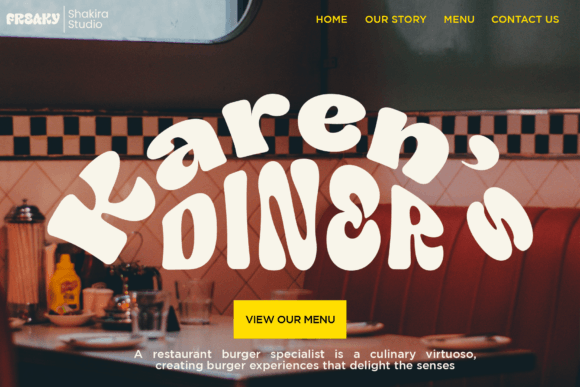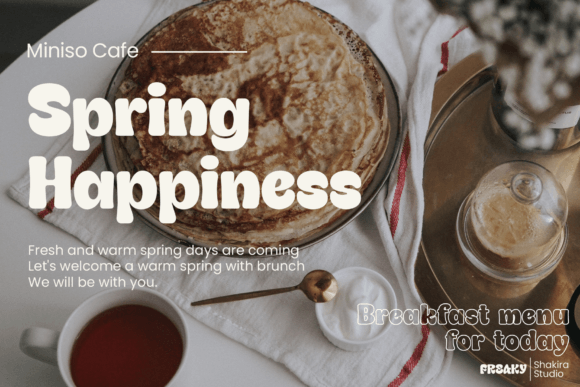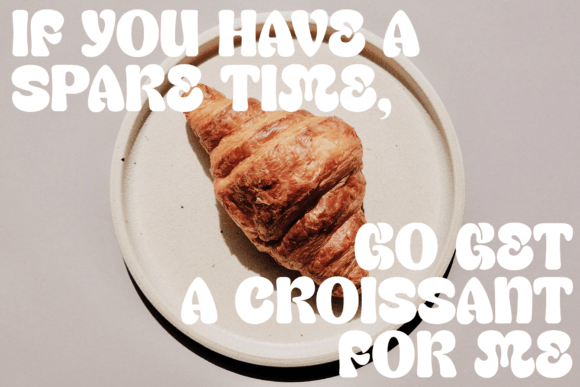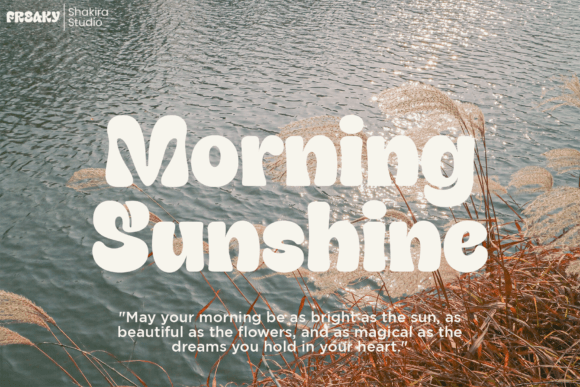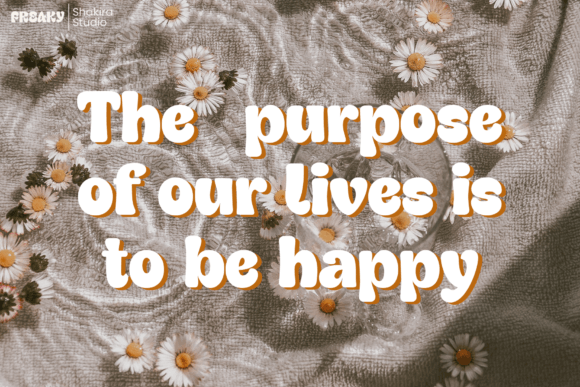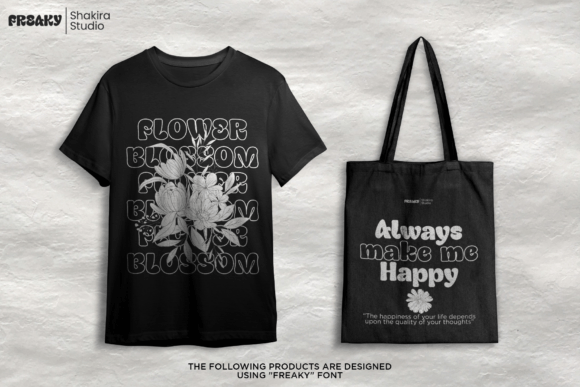
Introduction to Freaky Font
Freaky is a unique display serif font with two versions, regular and outline.
Specially designed to create a striking and eccentric look in a variety of design projects Freaky is a great choice for design projects that require a unique and striking visual identity.
Key Features of Freaky Font
Why Choose Freaky Font?
Freaky Font offers exceptional quality and versatility, making it a valuable addition to your design toolkit. Whether you’re creating for personal projects or commercial use, Freaky Font delivers professional results.